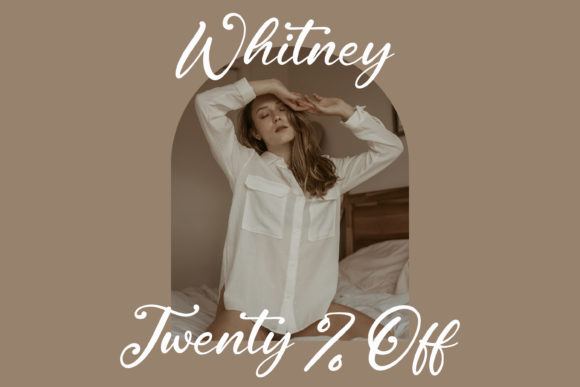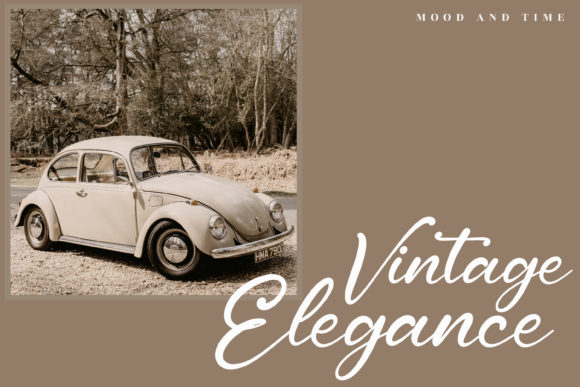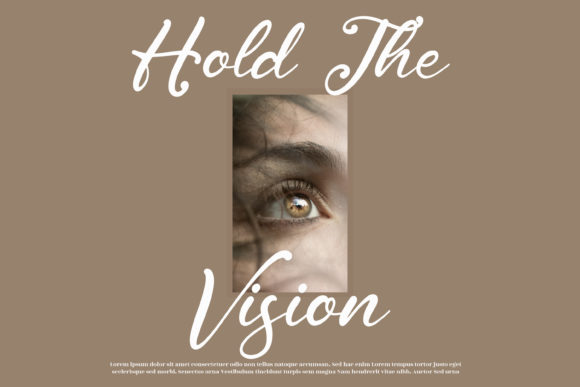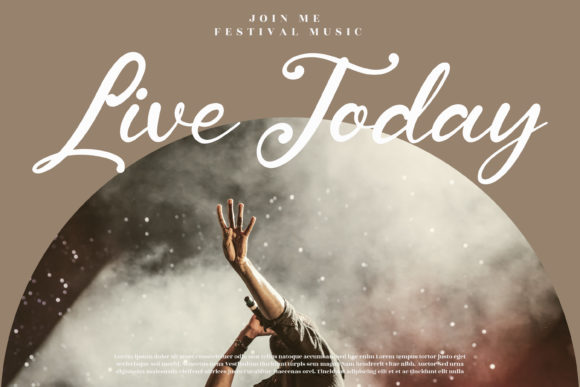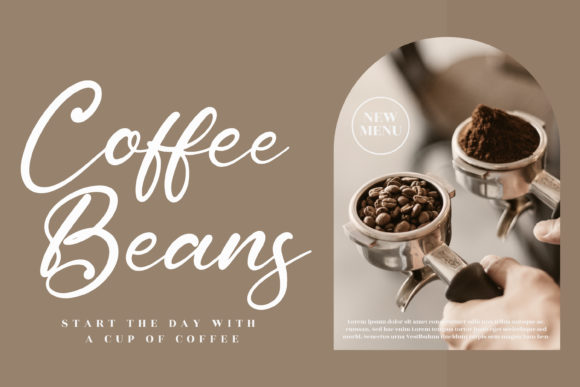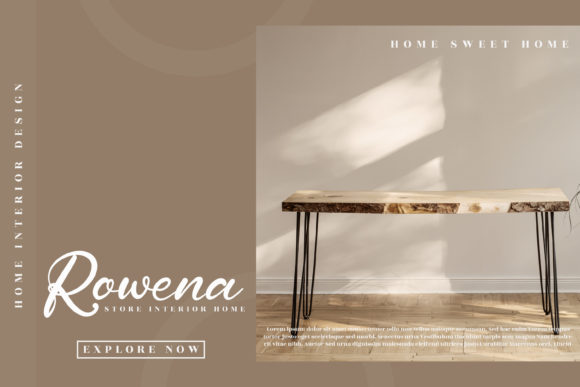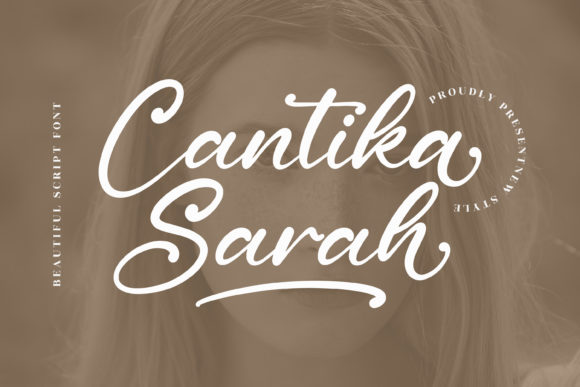
Cantika Sarah Font: Elevate Your Design with Luxurious Calligraphy
Are you looking for a font that adds a touch of luxury and sophistication to your design projects? Look no further than the Cantika Sarah Font. This stunning calligraphy typeface is designed to make your designs stand out with its delicate and elegant characters that dance along the baseline. In this article, we’ll explore the features and benefits of the Cantika Sarah Font and how it can elevate your design projects.
What is Cantika Sarah Font?
Cantika Sarah Font is a luxurious and delicate calligraphy typeface that is perfect for designers and crafters who want to add a touch of elegance to their projects. The font features characters that dance along the baseline, creating a beautiful and sophisticated look that is sure to impress. Whether you’re designing a wedding invitation, a logo, or a branding project, Cantika Sarah Font is the perfect choice.
Key Features of Cantika Sarah Font
Cantika Sarah Font comes with a range of features that make it a standout font for designers and crafters. Some of its key features include:
- Luxurious and delicate calligraphy: Cantika Sarah Font features elegant and sophisticated calligraphy that adds a touch of luxury to any design project.
- PUA encoded: The font is PUA encoded, which means you can access all of the amazing glyphs and ligatures with ease.
- Characters that dance along the baseline: The font’s characters are designed to dance along the baseline, creating a beautiful and dynamic look.
Benefits of Using Cantika Sarah Font
There are many benefits to using Cantika Sarah Font in your design projects. Some of the benefits include:
- Adds a touch of luxury: Cantika Sarah Font adds a touch of luxury and sophistication to any design project, making it perfect for high-end branding and design projects.
- Versatile: The font is versatile and can be used in a range of design projects, from wedding invitations to logos and branding projects.
- Easy to use: The font is easy to use and comes with a range of glyphs and ligatures that can be accessed with ease.
How to Use Cantika Sarah Font
- Use it for headings and titles: Cantika Sarah Font is perfect for headings and titles, where you want to add a touch of luxury and sophistication.
- Experiment with different colors and textures: The font looks great in a range of colors and textures, so don’t be afraid to experiment and find the look that works best for your project.
- Pair it with other fonts: Cantika Sarah Font can be paired with other fonts to create a unique and interesting look.
Design Project Ideas Using Cantika Sarah Font
Cantika Sarah Font is a versatile font that can be used in a range of design projects. Here are some project ideas to get you started:
- Wedding invitations: The font is perfect for wedding invitations, where you want to add a touch of luxury and sophistication.
- Logos and branding projects: Cantika Sarah Font is great for logos and branding projects, where you want to create a high-end look.
- Stationery and greeting cards: The font is also great for stationery and greeting cards, where you want to add a touch of elegance.
Cantika Sarah Font is a luxurious and delicate calligraphy typeface that is perfect for designers and crafters who want to add a touch of elegance to their projects. With its PUA encoding and range of glyphs and ligatures, the font is easy to use and versatile. Whether you’re designing a wedding invitation, a logo, or a branding project, Cantika Sarah Font is the perfect choice.